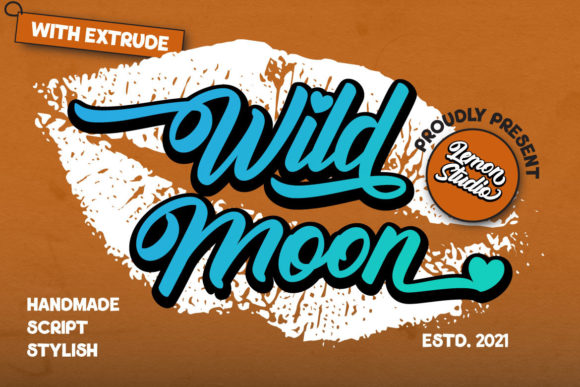
Embark on a typographic adventure with Wild Moon Font, a captivating creation by WildaKhairunnisa. Immerse yourself in the realm of celestial beauty, where intricate strokes dance across the canvas, leaving a trail of elegance and charm. Wild Moon Font is a celestial dance of letters, where each character pirouettes with grace and poise.
Indulge in its symphony of curves, the delicate tendrils of each letter intertwining like vines reaching for the sun. Experience the allure of its extrude effect, adding a touch of dimension and intrigue to your designs.
Whether you're a cartographer crafting intricate web maps, a designer weaving visual spells, or an artist painting with words, Wild Moon Font is your celestial muse. It's perfect for logotypes that command attention, branding designs that leave a lasting impression, and headings that make a statement.
Unleash the power of Wild Moon Font in your digital lettering arts, watch your posters come alive with its magnetic charm, and let your t-shirts and merchandise radiate with its celestial allure. Magazines, quotes, signs, and Instagram designs will shimmer with a new brilliance when adorned with Wild Moon Font.
Dive into the depths of your imagination and let Wild Moon Font guide you. Its versatility knows no bounds, its beauty transcends genres. Whether you're crafting advertisements that resonate or unleashing your creative genius in countless other ways, Wild Moon Font is your cosmic companion.